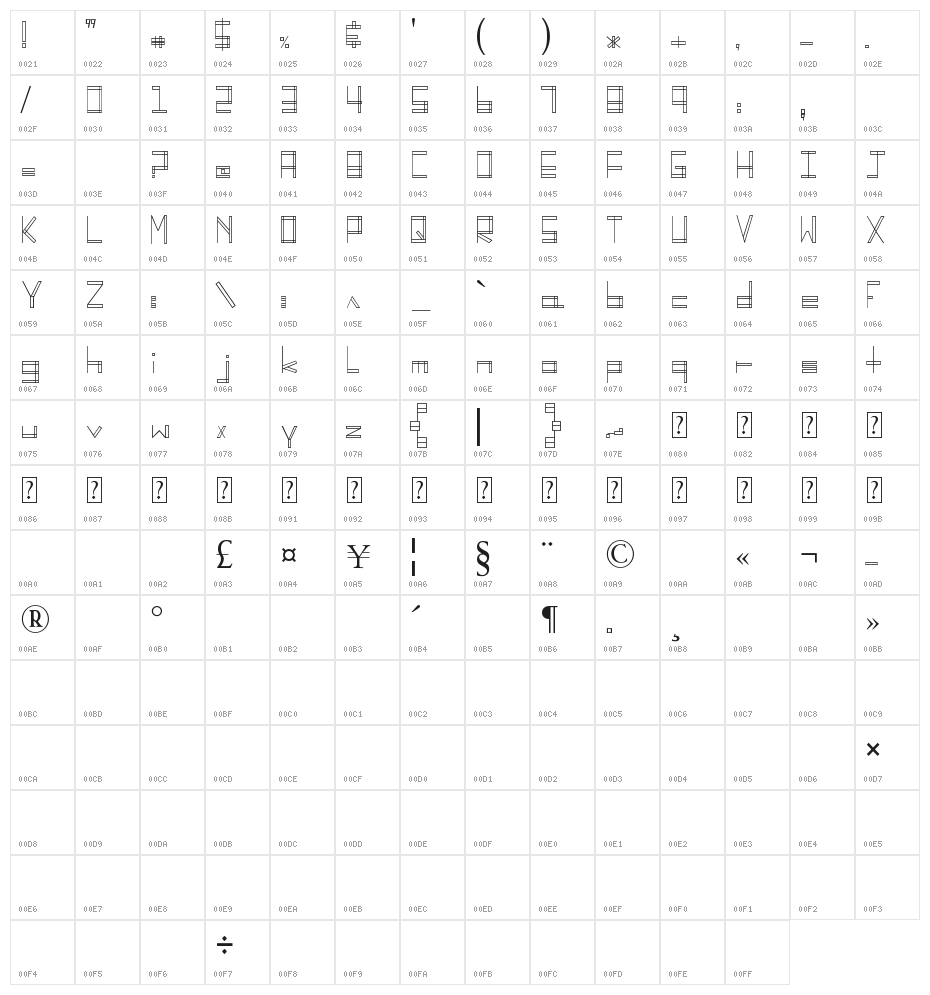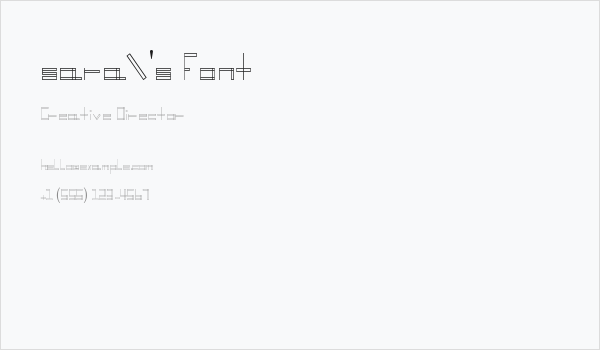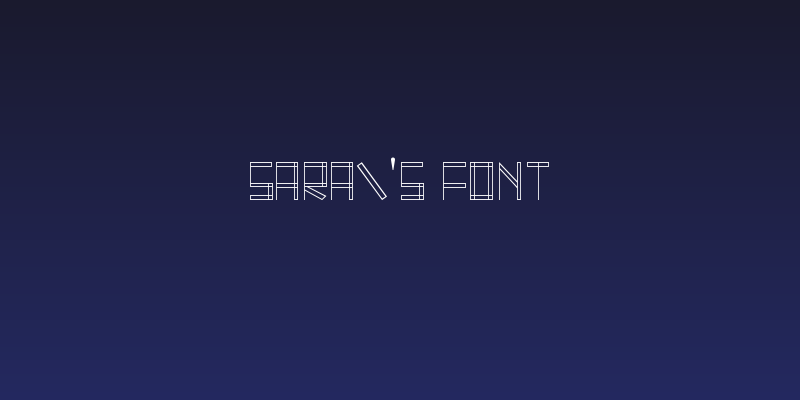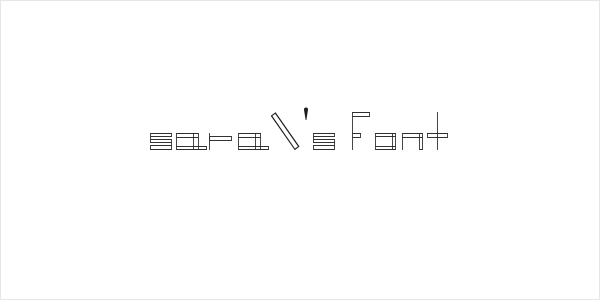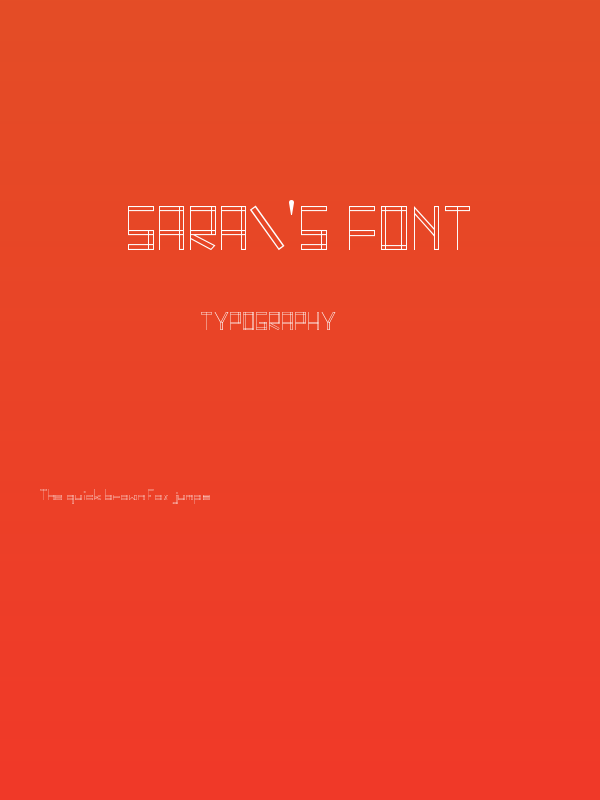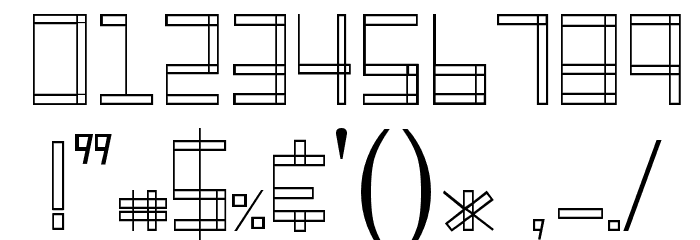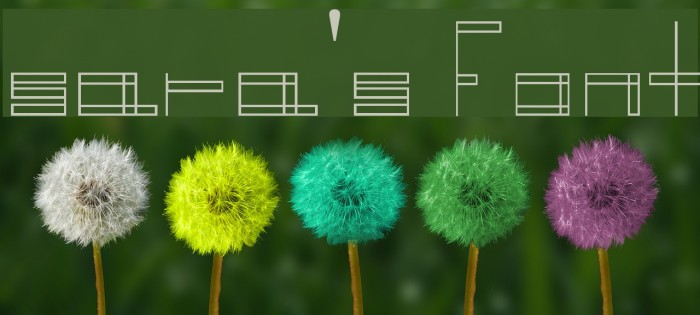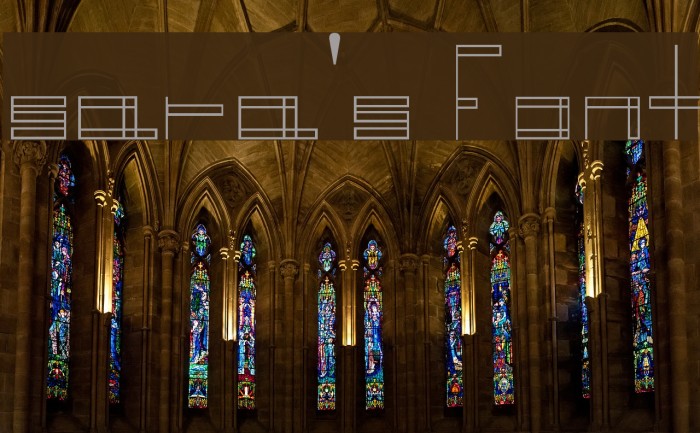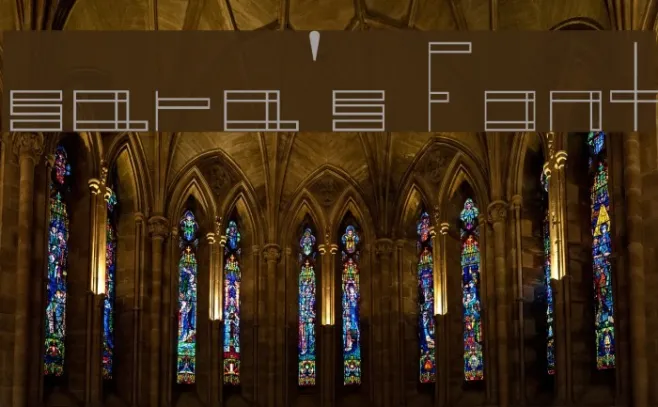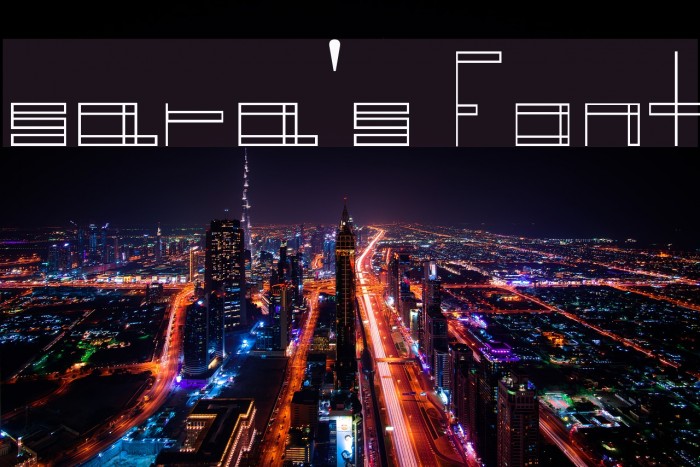
sara's font Font
sara's font Description
This font features a geometric and structured design, characterized by its use of straight lines and right angles. The uppercase letters are constructed with a grid-like pattern, giving them a modern and architectural feel. The lowercase letters maintain this geometric style but with a slightly more open and airy appearance. Numbers and special characters follow the same design principles, ensuring consistency across all glyphs. The font's unique style makes it stand out, suitable for projects that require a contemporary and technical look.
| Proposed Projects | Ideal for architectural designs, technical documents, modern branding, and digital interfaces. |